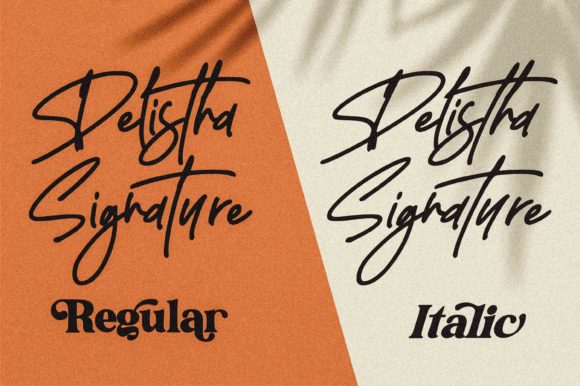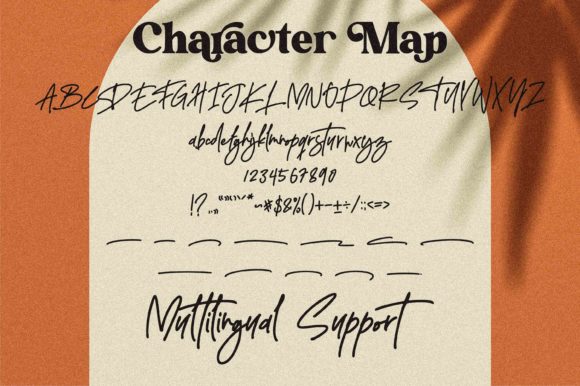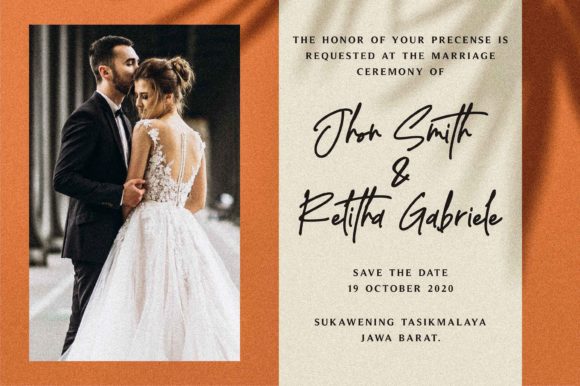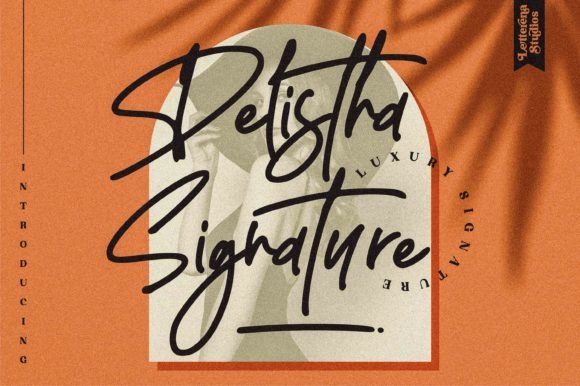
Introduction to Delistha Signature Font
Delistha Signature is a neat and stylish handwritten font.
Not too thin and not too thick, balanced and varied, this cursive font was designed to enhance the beauty of your projects .